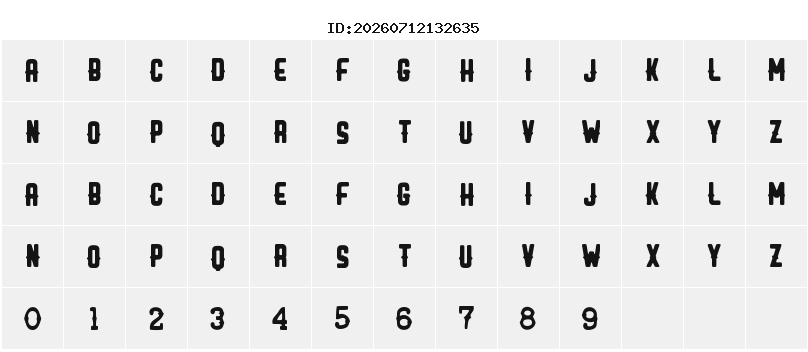
MACHO Preview
• Font Name: MACHO
• Font ID: MACHO:Version 1.00
• Full Font Name: MACHO
• Version: Version 1.00 February 26, 2016, initial release
• PostScript Name: MACHO
• Designer: Woodcutter Manero
About MACHO.ttf
MACHO.ttf is a modern, elegant sans-serif font designed for ultimate readability and visual harmony. Perfect for branding, headlines, web design, and print materials.